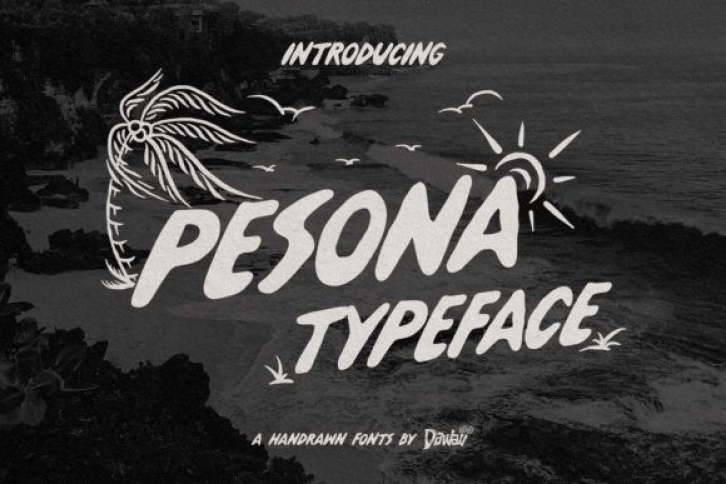
Pesona is a bold display font with a simple, raw and a little vintage look. Tthis font is suitable for your design needs such as: poster design, magazines, logos, branding, packaging and much more.